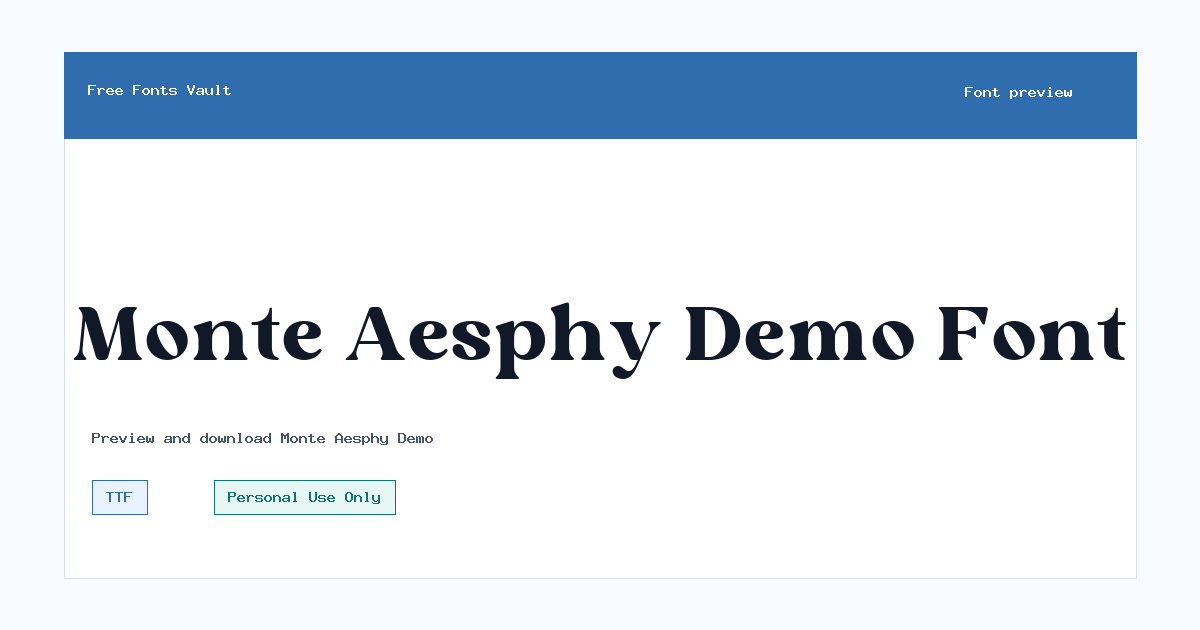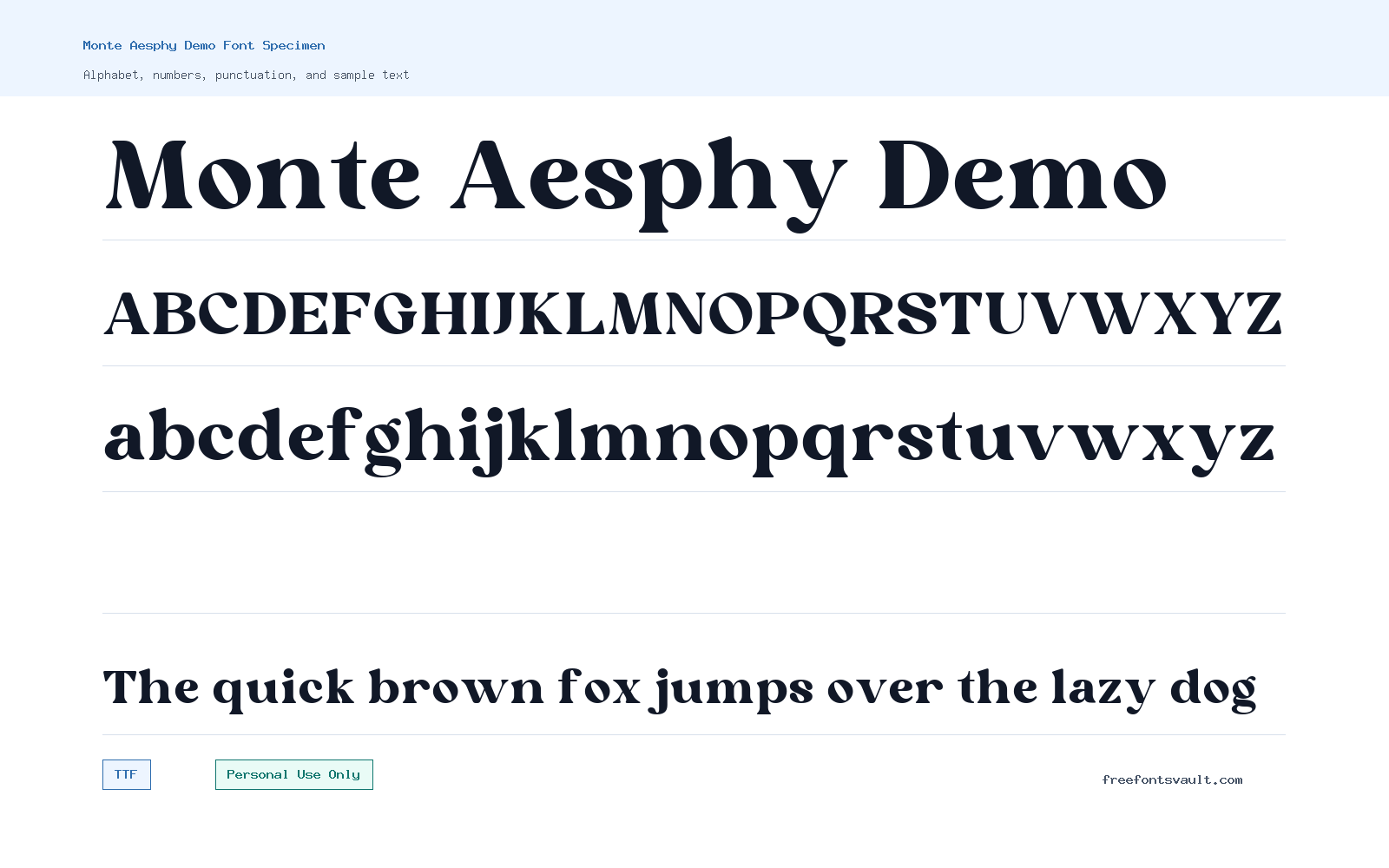
Monte Aesphy Demo
- Designer Ragamkata Studio
Monte Aesphy Demo is a personal-use demo font from Ragamkata Studio. It is best approached as a display serif for short, polished text rather than long reading paragraphs, with the license limit checked carefully before any client or commercial project.
About Monte Aesphy Demo
Monte Aesphy Demo is listed as a serif font, and the available file is a Regular TTF style. That makes it easy to install and test in common design apps, including layout tools, image editors, and many font preview projects. Because this is a demo release, it is a good choice for trying the character shapes, spacing, and overall mood before deciding whether it fits a larger project. Use the preview area to test the exact words you plan to design with, especially names, brand phrases, invitation titles, and poster headlines.
For design work, Monte Aesphy Demo will be most useful in places where the font can be seen clearly: logos, display headings, social media graphics, packaging mockups, posters, and web hero concepts. Keep the text short at first. Demo serif fonts often look strongest when they have room to breathe, so try generous letter spacing, simple backgrounds, and fewer competing decorative elements. If you are testing it for logo work, check both uppercase and lowercase forms, then view the wordmark at small and large sizes. A font that looks elegant in a large preview can become harder to read when reduced for a favicon, watermark, mobile header, or profile image.
Pairing Monte Aesphy Demo with a simpler font can make layouts feel more balanced. Try using it for the main title and a clean sans serif for subtitles, body copy, navigation, dates, pricing, or captions. If your project needs a softer editorial feel, pair it with a quiet old-style serif for body text, but avoid using two expressive serifs too close together unless their contrast is clear. For posters and web mockups, test the title in Monte Aesphy Demo and keep supporting text plain so the display font remains the focus.
- Serif demo style suited to short display text, headings, branding tests, and poster concepts
- Works best when tested with the exact words, sizes, and layout context of the intended design
- Logo concepts and wordmark drafts
- Poster titles and event headline mockups
- Web hero headings and landing page previews
- Social media graphics with short text
- Packaging, label, and editorial-style layout experiments
Monte Aesphy Demo is credited to Ragamkata Studio.
Is Monte Aesphy Demo good for body text?
It is better to test it first as a display font for titles, logos, and short headings. For long paragraphs, pair it with a simpler, highly readable body font.